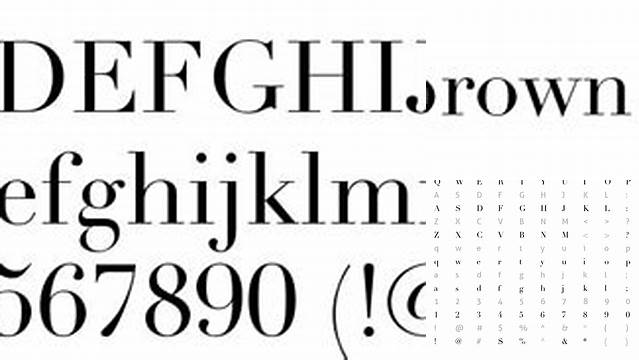
Linotype Didot Roman Font Free Download: Your Guide
Are you on the hunt for a classic and elegant font that exudes sophistication? Look no further than the Linotype Didot Roman font. This timeless typeface, steeped in history and renowned for its refined aesthetic, is a favorite among designers and typographers. In this guide, we'll delve into everything you need to know about the Linotype Didot Roman font, including how to get a free download, its characteristics, and how to use it effectively in your design projects. Get ready, guys, because we're about to unlock the secrets of this beautiful font!
What is the Linotype Didot Roman Font?
Firstly, let's get to the heart of the matter. The Linotype Didot Roman font is a member of the Didone or Modern typeface classification. It is named after the Didot family, a dynasty of French printers, punch cutters, and publishers, who significantly impacted typography during the 18th and 19th centuries. This font is characterized by its high contrast between thick and thin strokes, its vertical stress, and its sharp, unbracketed serifs. Think of it as the embodiment of elegance, a font that whispers sophistication with every letter. If you're after a font that speaks volumes, you know, that makes your work look both classy and clean, this one is certainly a top contender. This font has been used in fashion magazines, high-end branding, and various design projects where a touch of luxury is needed. The design of the Didot typeface is really about the contrast between the strokes, and that's where the magic lies. The delicate hairlines, the thick, bold stems, all blend together to create a unique look. When you use it, your work is instantly elevated, as though you've added a dash of Parisian chic.
This font is super popular in the design world. In the age of digital design, fonts like Linotype Didot Roman are even more important because they provide a bridge to our traditional design methods, reminding us of the importance of good design. It's a fantastic selection if you're looking to enhance your projects with a touch of history, style, and readability. This specific font, and other Didot typefaces, are more than just a collection of characters; they are a piece of history, a celebration of craftsmanship, and a testament to the enduring power of good design. So, before you start using the font, it's important to understand what it is that makes it so unique. That's what we're diving into next.
Features and Characteristics of the Linotype Didot Roman Font
Now, let's dissect the DNA of the Linotype Didot Roman font. This font boasts several key features that set it apart. The high contrast is, without a doubt, one of the most defining features. The difference between thick and thin strokes is extreme, creating a dynamic visual effect. Think of it like a beautiful dance between heavy and delicate lines. This contrast provides a sense of refinement and elegance, making it a great choice for projects where you want to convey a sense of luxury or sophistication. Next up is the vertical stress. Unlike some fonts that have a more oblique or slanted appearance, the Didot Roman font maintains a strong vertical axis. This means the thickest parts of the letterforms are aligned vertically, adding to the font's formal and balanced appearance. It gives the font a sense of order and precision, perfect for creating a feeling of professionalism.
Then, there are the unbracketed serifs. Serifs are the small strokes at the ends of the letter's main strokes. In the Didot Roman font, these serifs are sharp and don't have any brackets. This means they don't connect smoothly to the main strokes. Instead, they make a clean, precise termination, enhancing the font's modern feel. This makes it really stylish and easy to read. One of the remarkable things about Didot is how it can be used in a variety of ways. It performs great in headings, and is also legible in body text, provided that you use the right size. It’s a versatile font, perfect for a range of design requirements. The font's adaptability, combined with its visual charm, makes it a favorite among designers who want to leave a lasting impression. Whether you're designing a website, a print ad, or creating a book, the Linotype Didot Roman font is a perfect choice to make sure your project looks stunning, both in terms of aesthetics and readability.